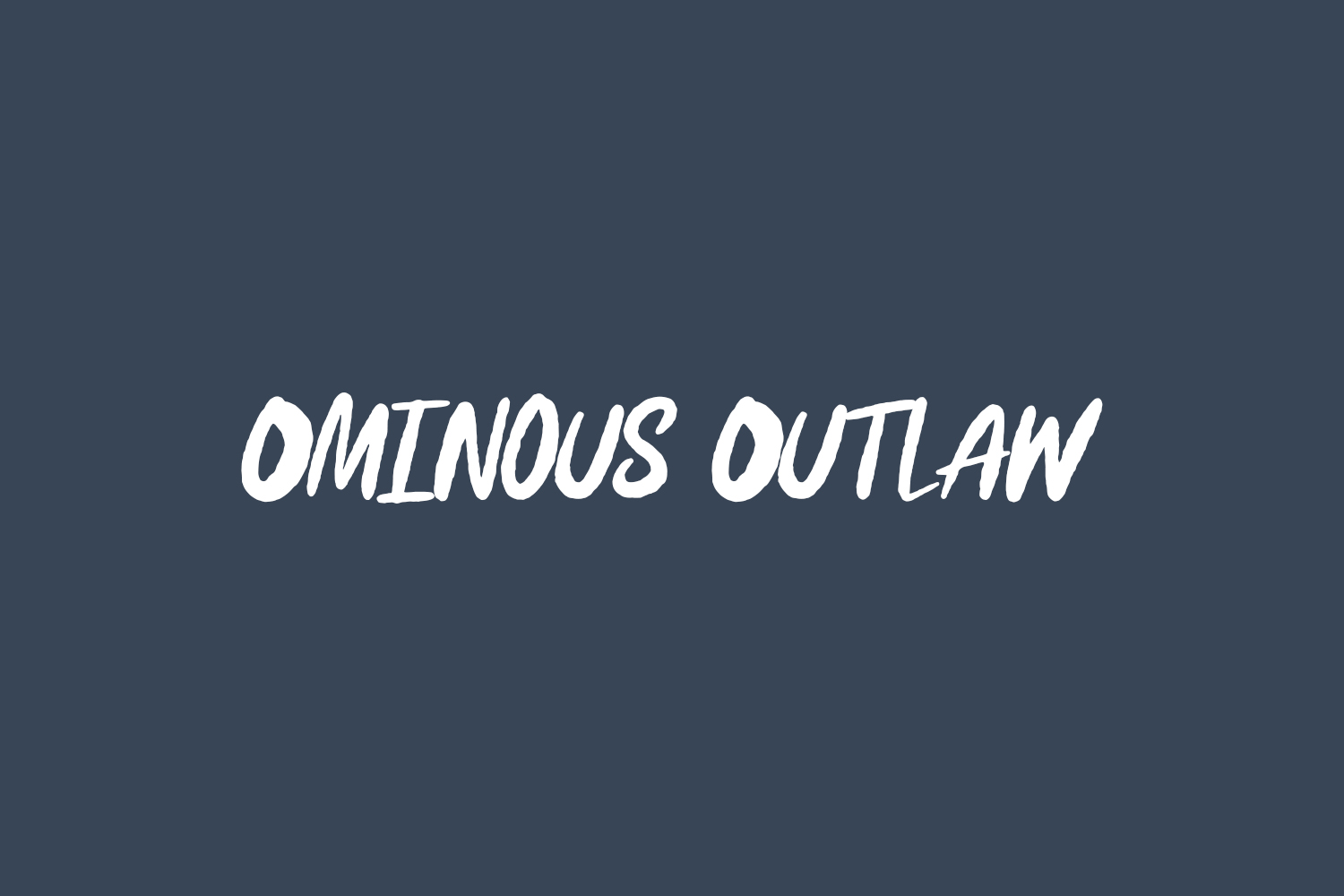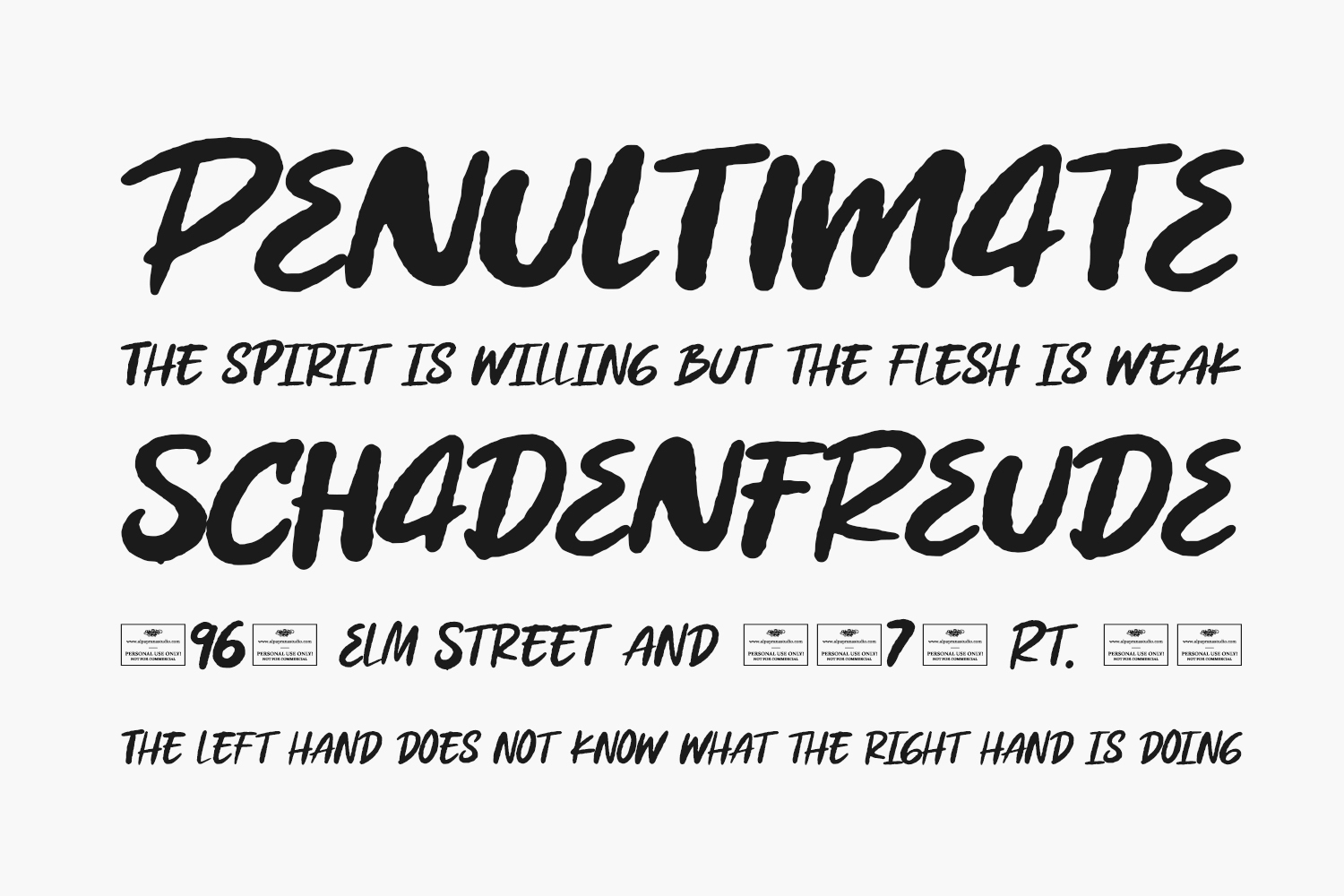
Discover the striking allure of Ominous Outlaw Free Font, a dynamic rough display font that seamlessly blends modern aesthetics. Ideal for elevating your branding, logo designs, lettering, clothing, posters, magazines, packaging, and more. Elevate your design projects, from book covers to special events, with this versatile typeface. Download the font for free if you need it for personal use or purchase the full version for commercial use.